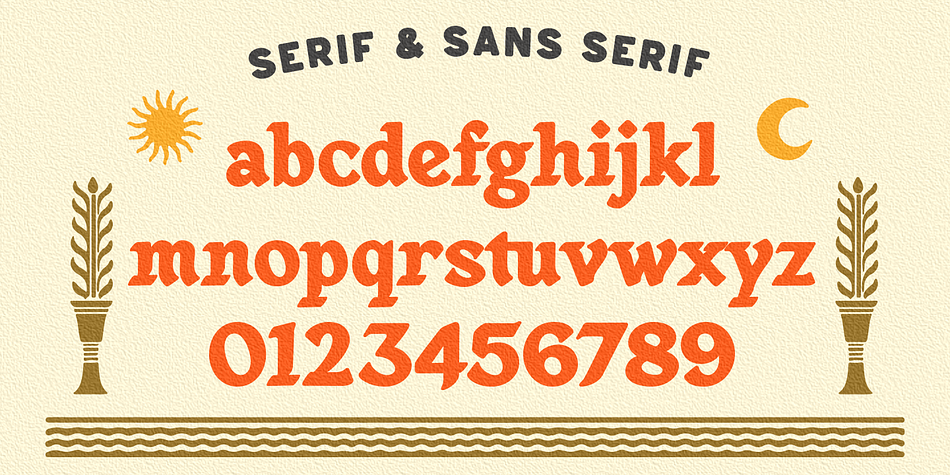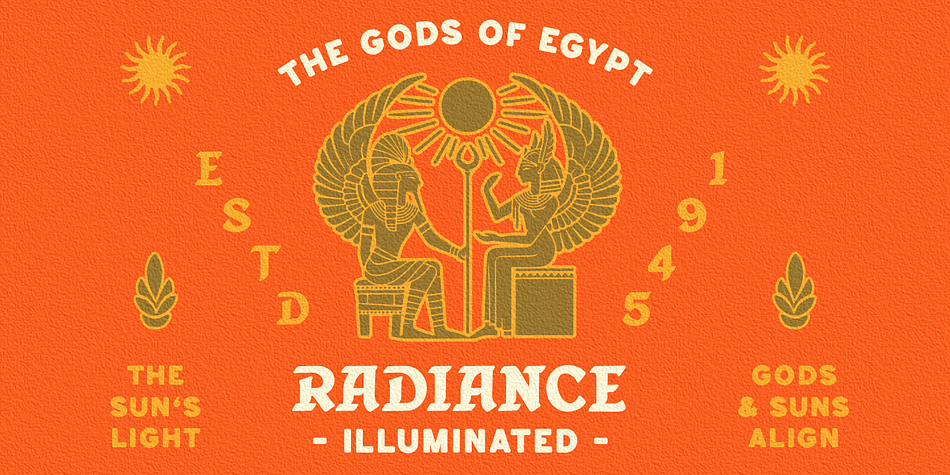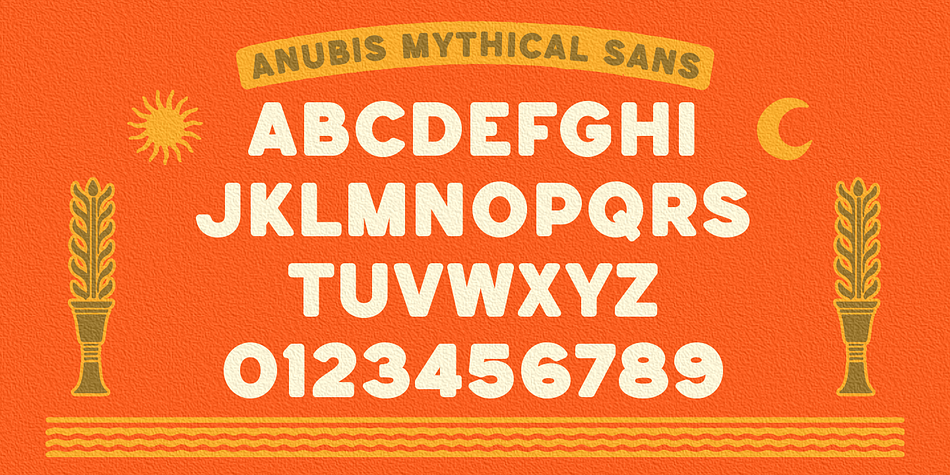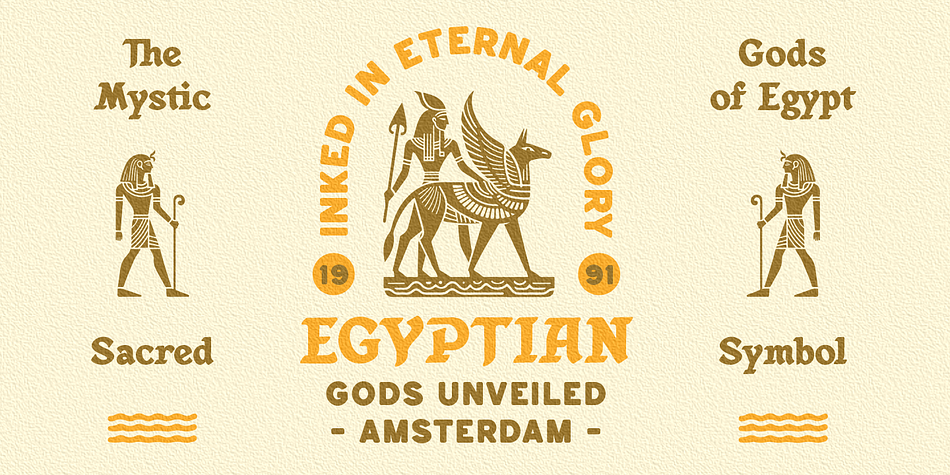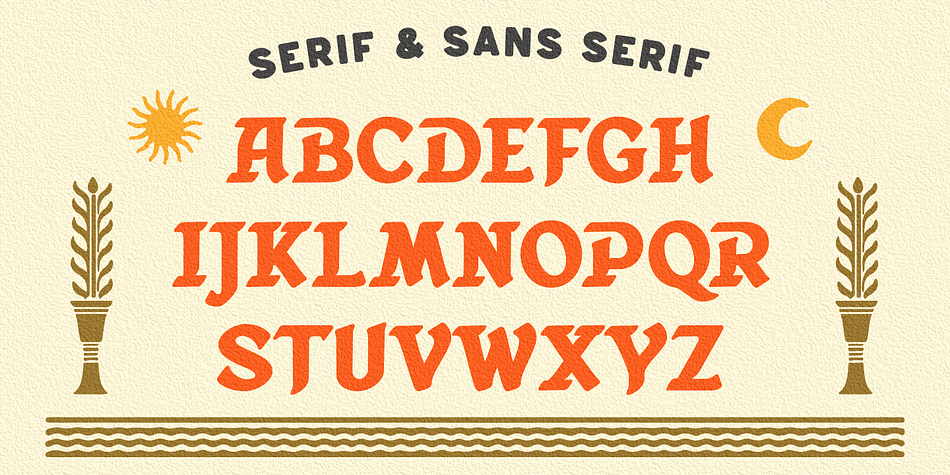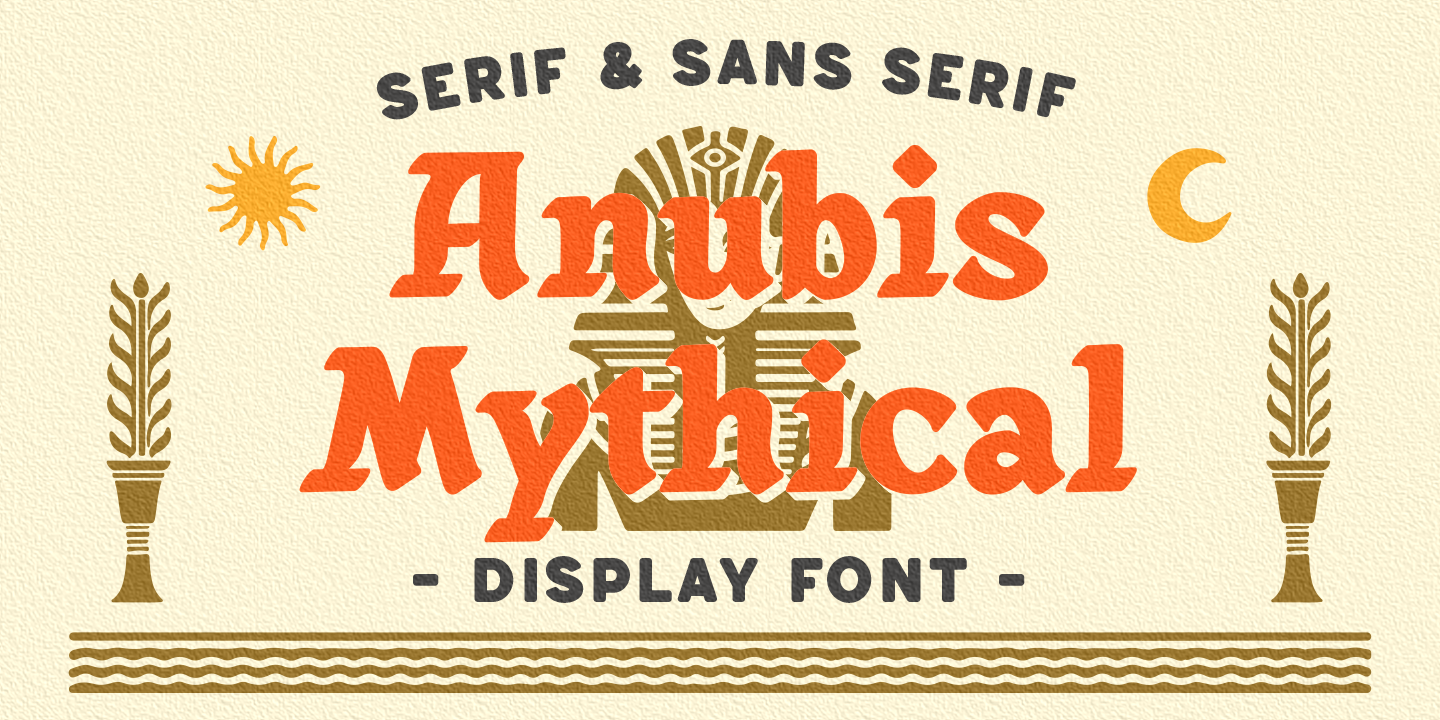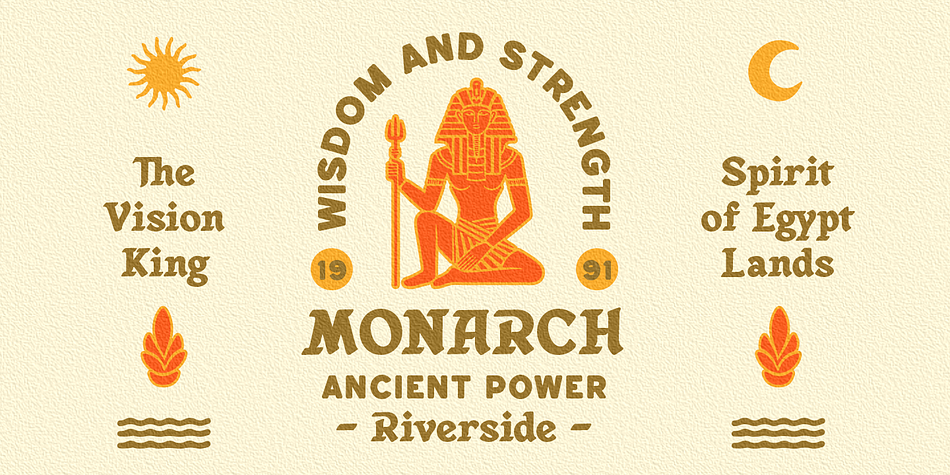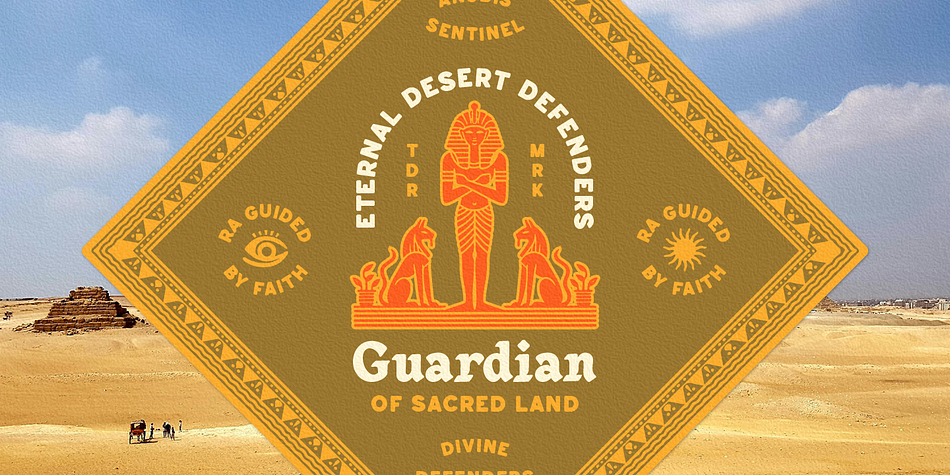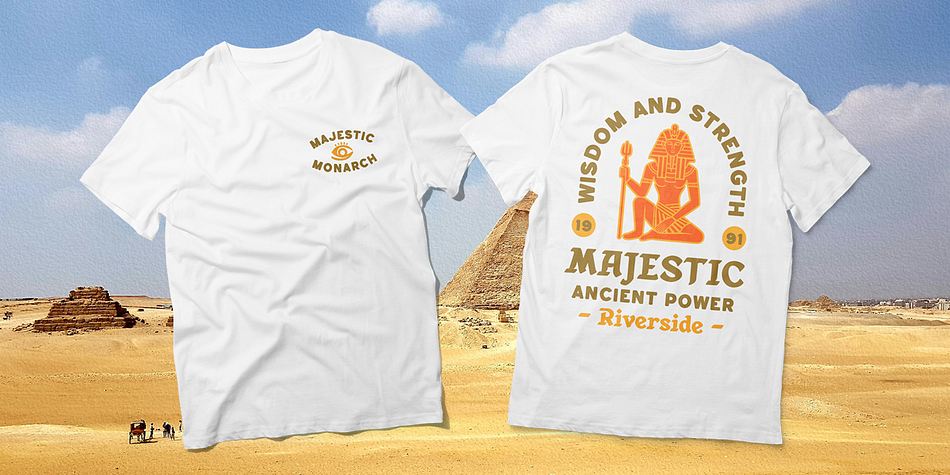
Anubis Mythical
Designed by Edi Gunawan, Anubis Mythical is a display sans and display serif font family. This typeface has six styles and was published by Edignwn Type.
Ultimate Egyptian font called Anubis Mythical, a versatile serif and sans font perfect for badges, logos, and branding. With three unique styles (regular, rough, and stamp) and ligature features, this font adds a touch of ancient Egyptian flair to any project. Ideal for creating striking badges and Egyptian-themed designs. Unlock your creativity with Anubis Mythical today!
- 3 style typefaces (regular, rough and stamp)
- Uppercase, lowercase, numeral, symbol, punctuation and ligature in serif font
- All-caps, numeral, symbol and punctuation in sans serif font